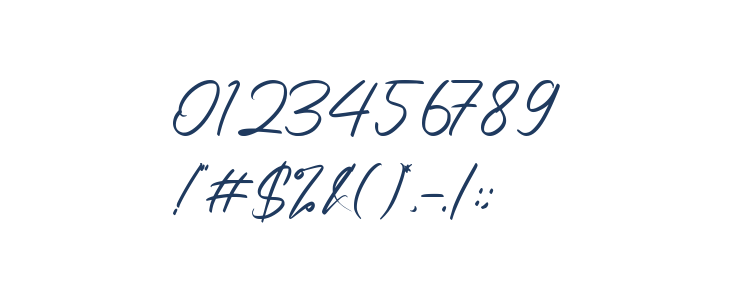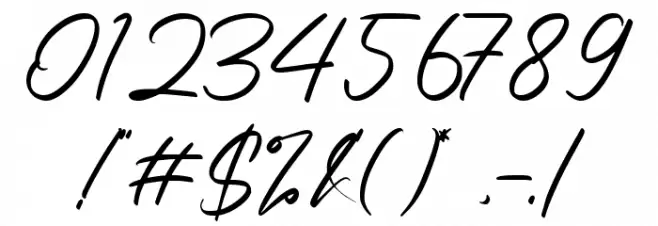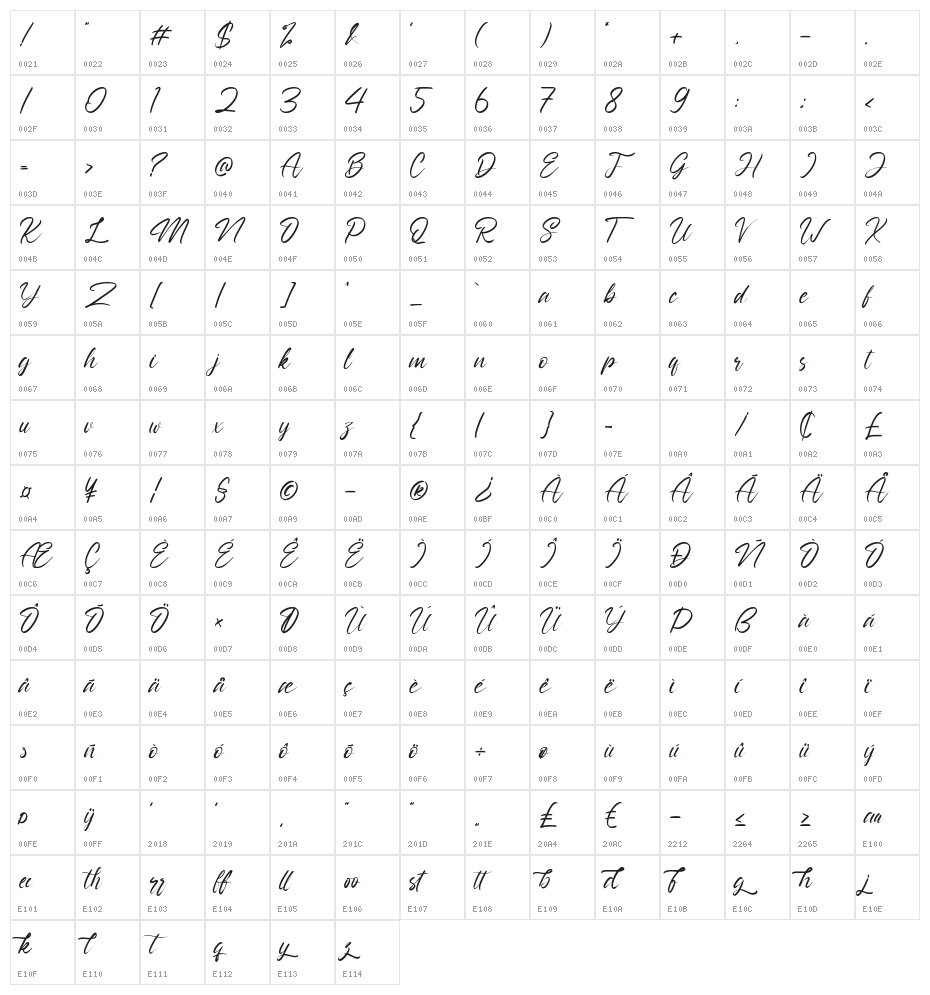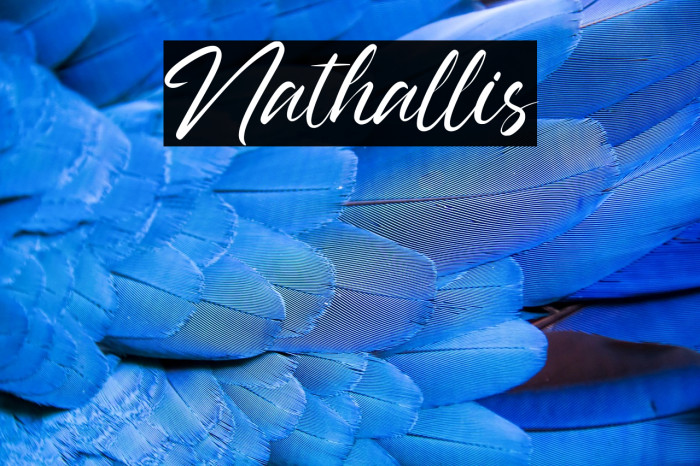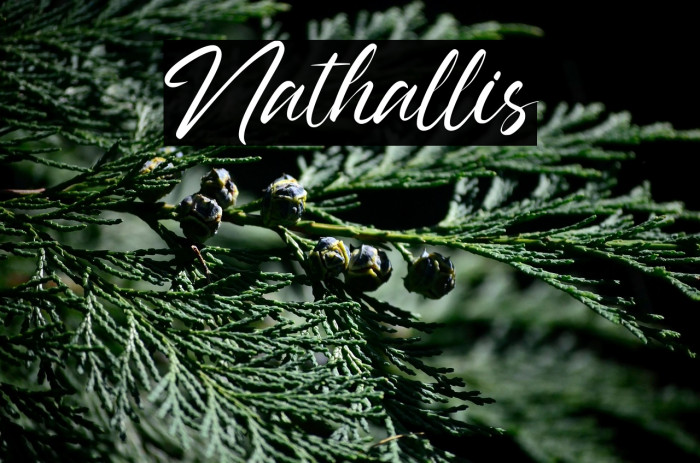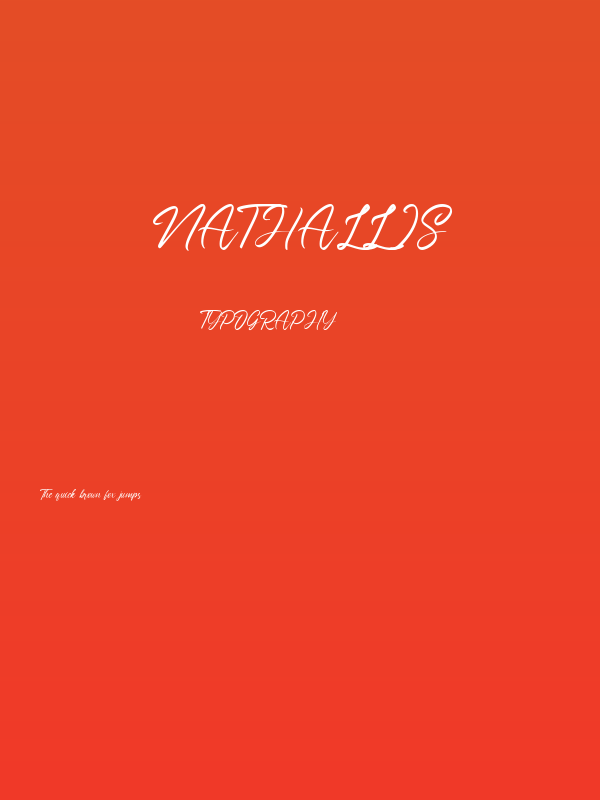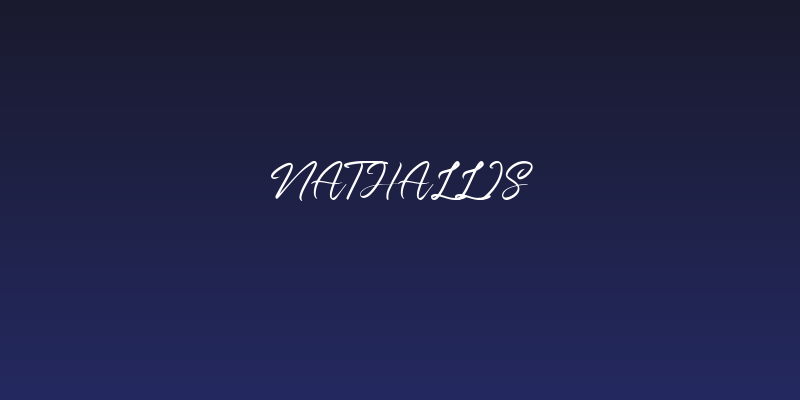
Nathallis Font
Nathallis Description
This elegant script font features a flowing, cursive style with smooth, connected strokes that mimic the fluidity of handwriting. The uppercase letters are tall and graceful, with sweeping curves and loops that add a touch of sophistication. The lowercase letters maintain a consistent rhythm, enhancing readability while preserving the artistic flair. Numbers and special characters are designed with the same attention to detail, ensuring a cohesive look across all text. The font's overall appearance is both stylish and versatile, making it suitable for a variety of design applications.
| Overall Style | Elegant, Decorative |
| Use Case | Logos, Invitations, Decorative text |
| Proposed Projects | Ideal for wedding invitations, greeting cards, branding, and elegant logos. |